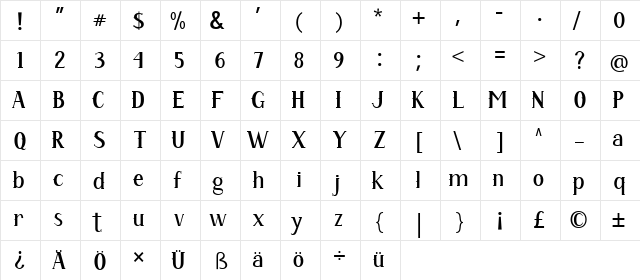
Batlagor Regular
| Designer | ARTO STUDIO |
Design Context for Batlagor Typeface
Batlagor takes a measured approach to typography — its balanced proportions and neutral character make it a reliable workhorse for both digital and print work.